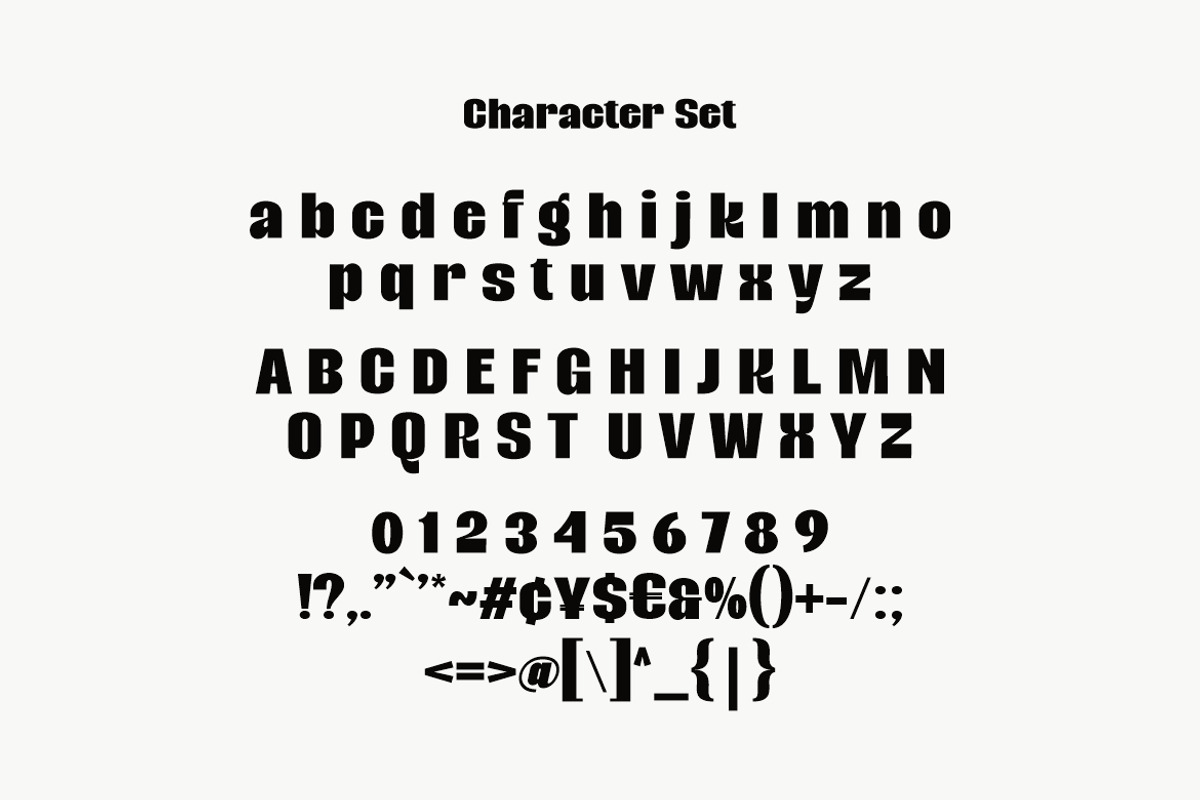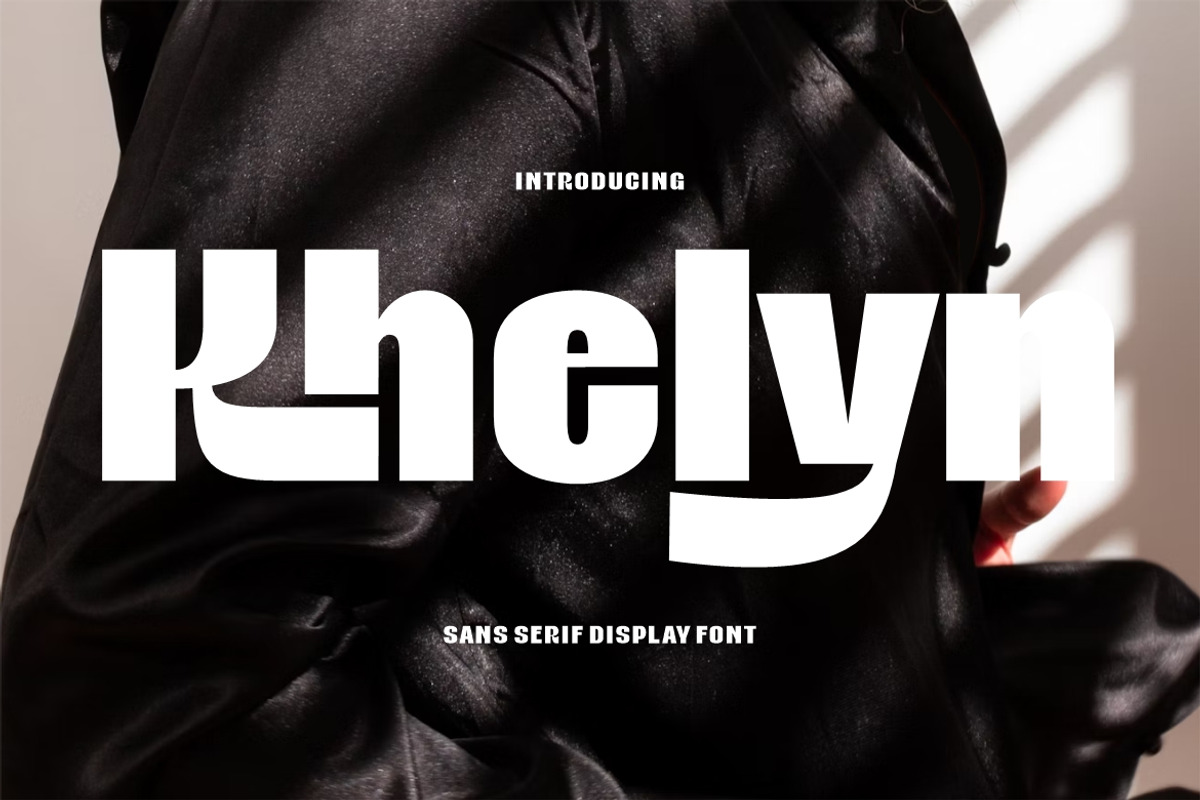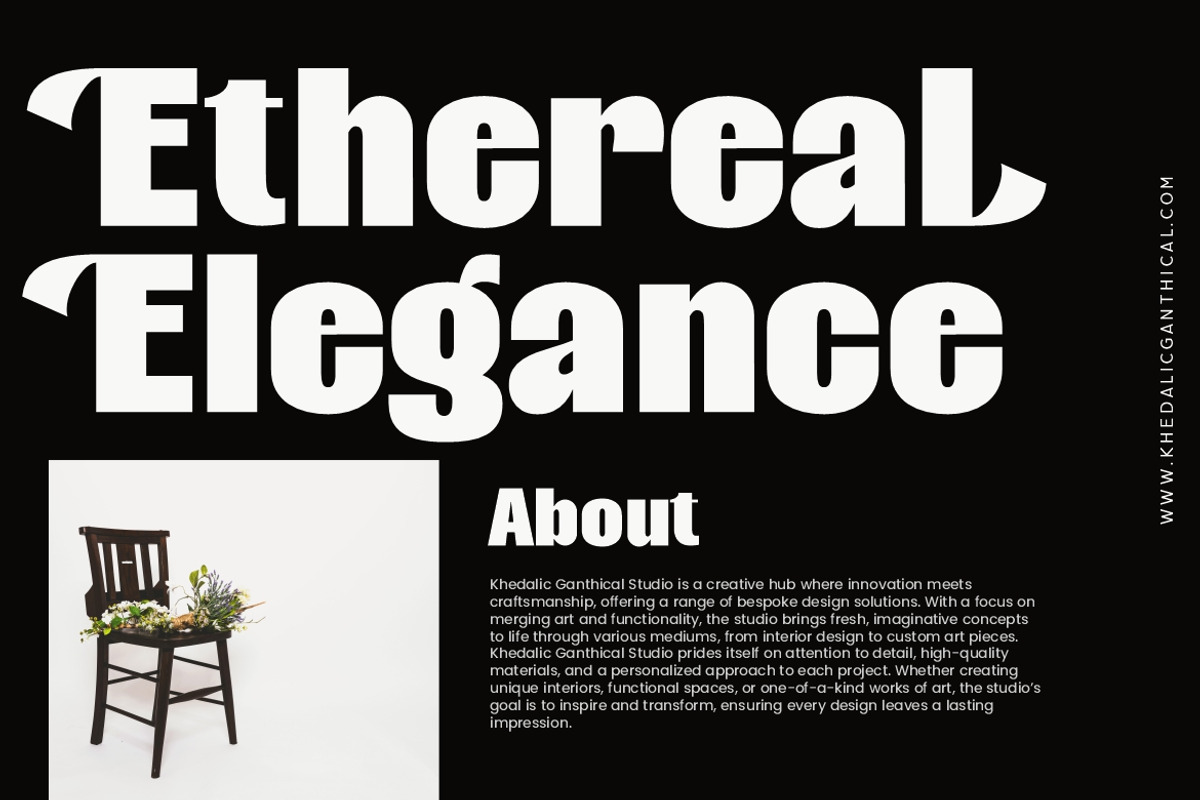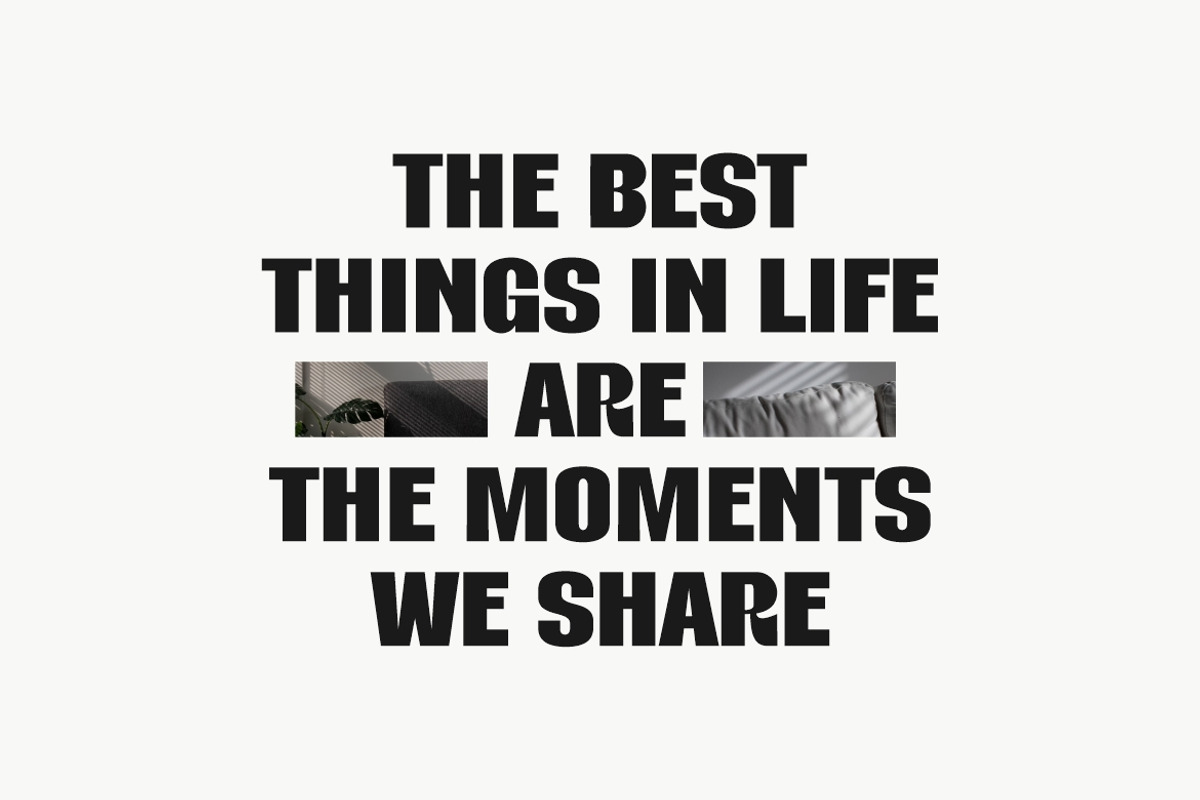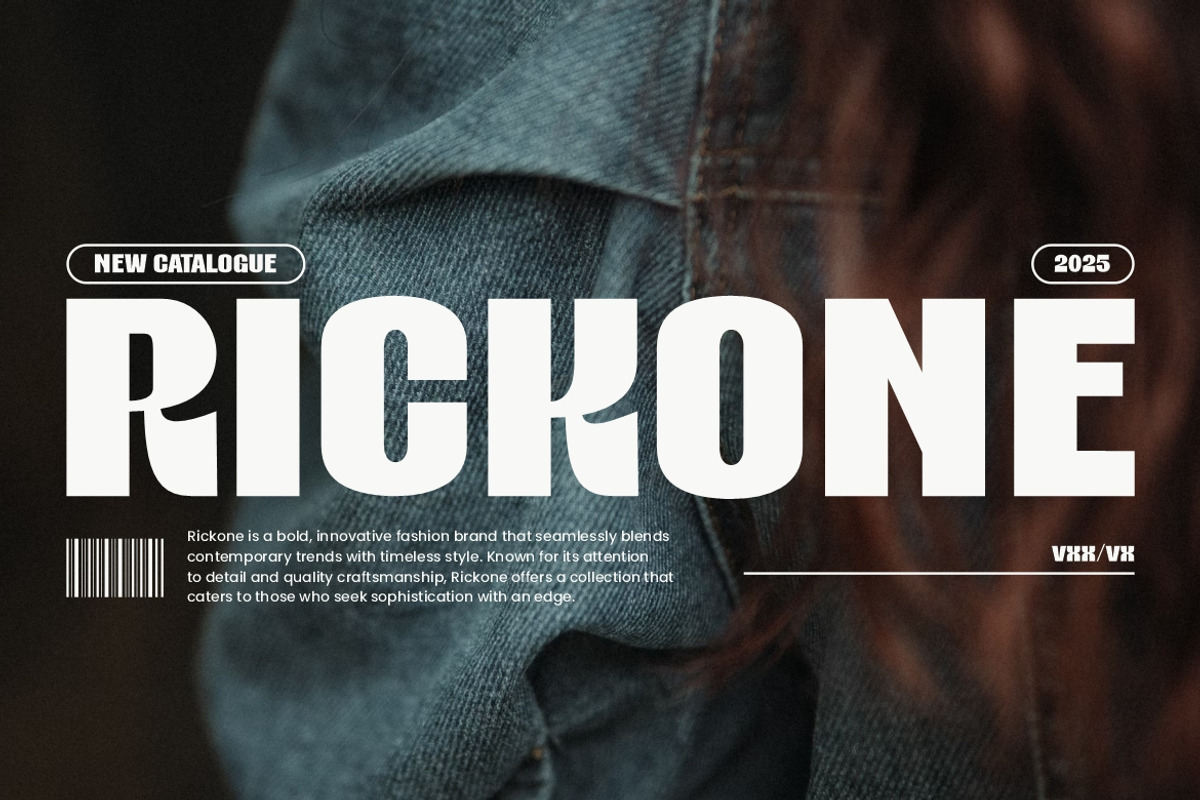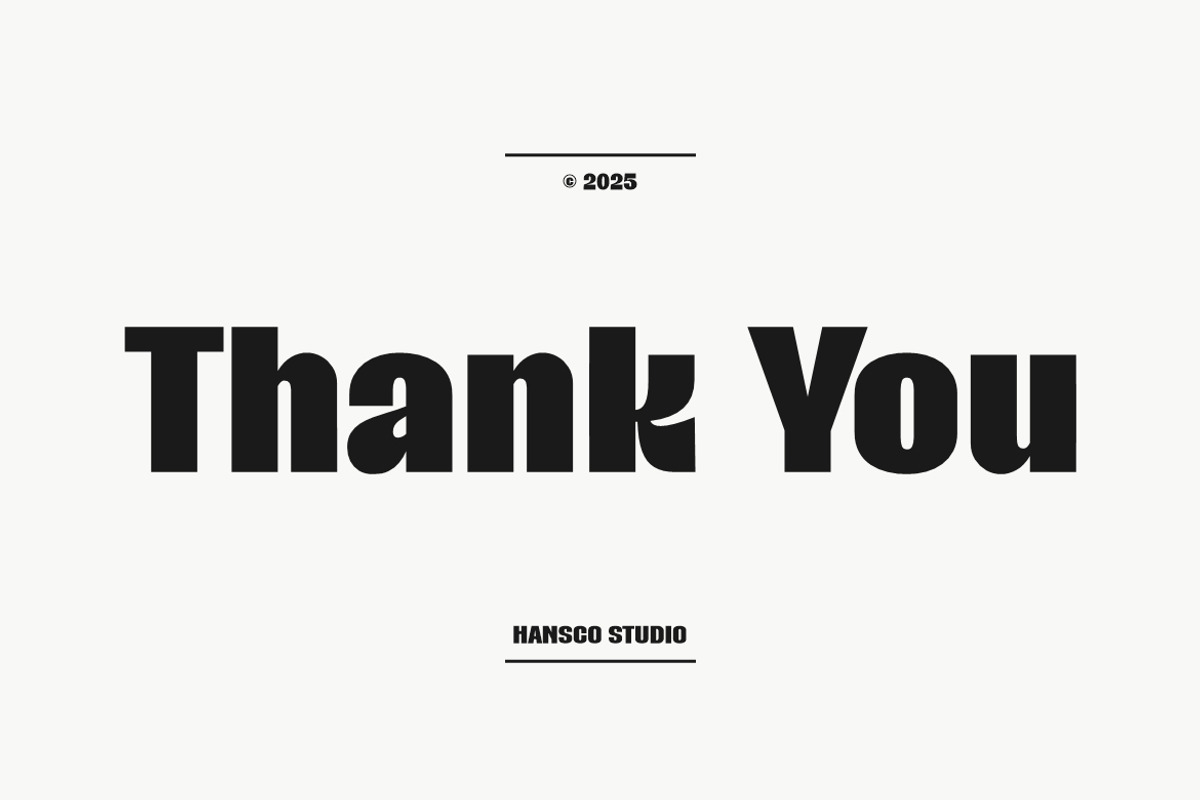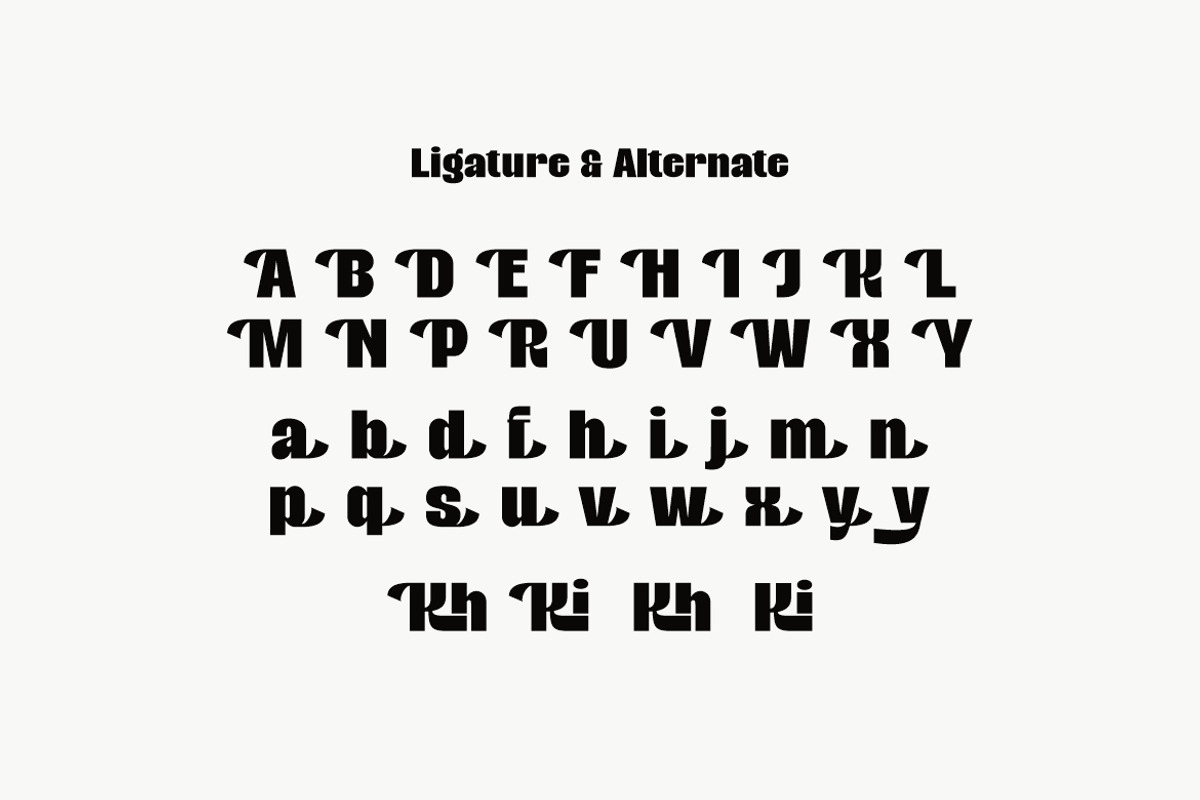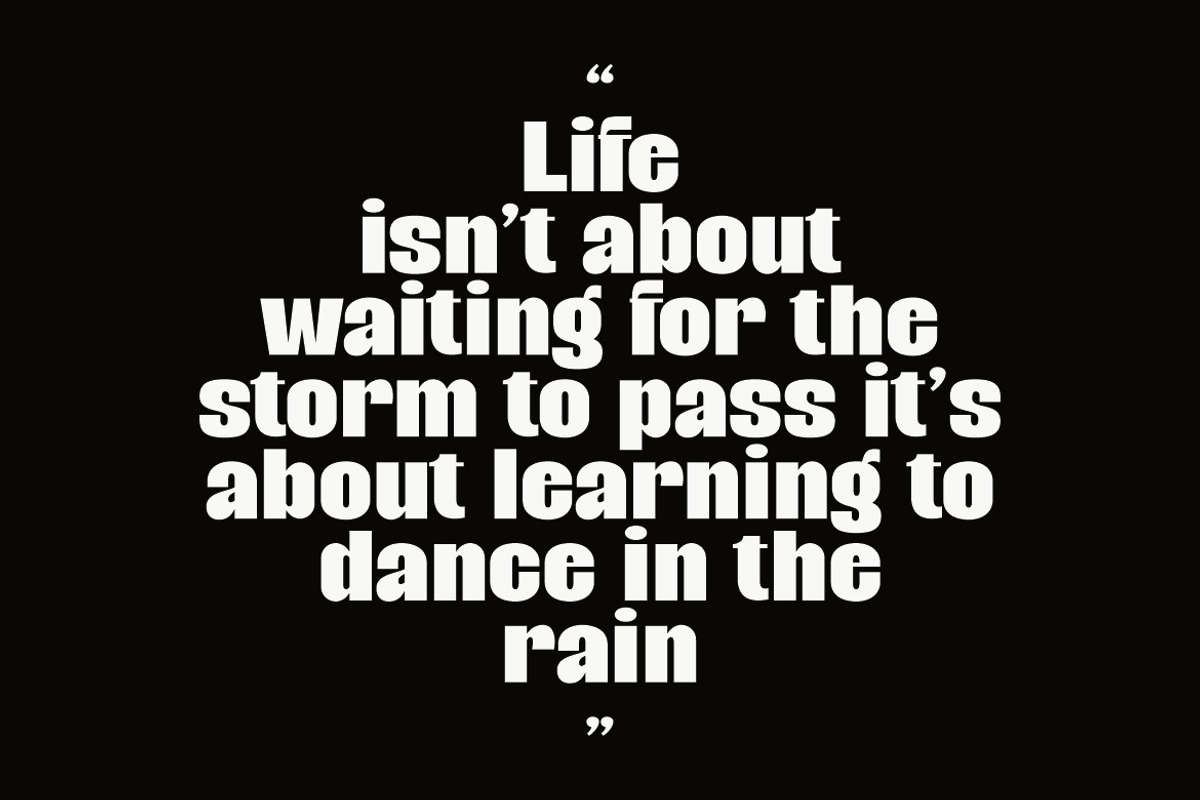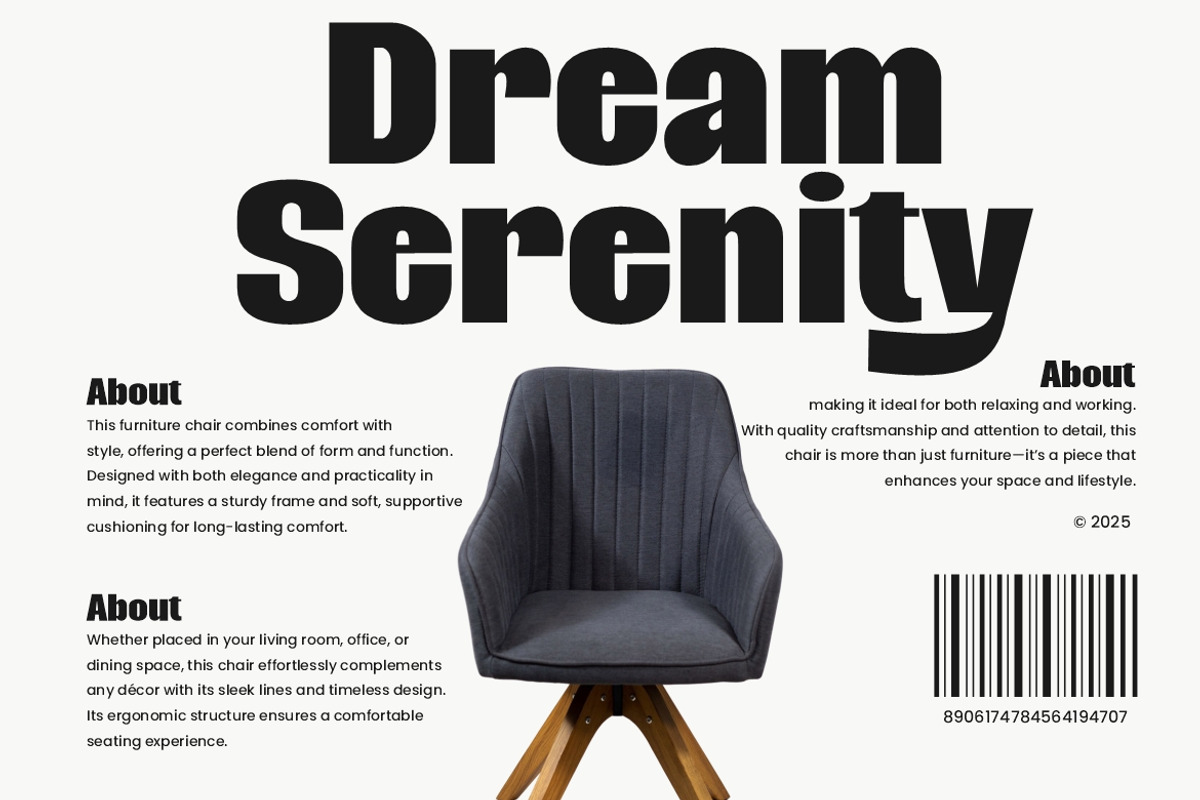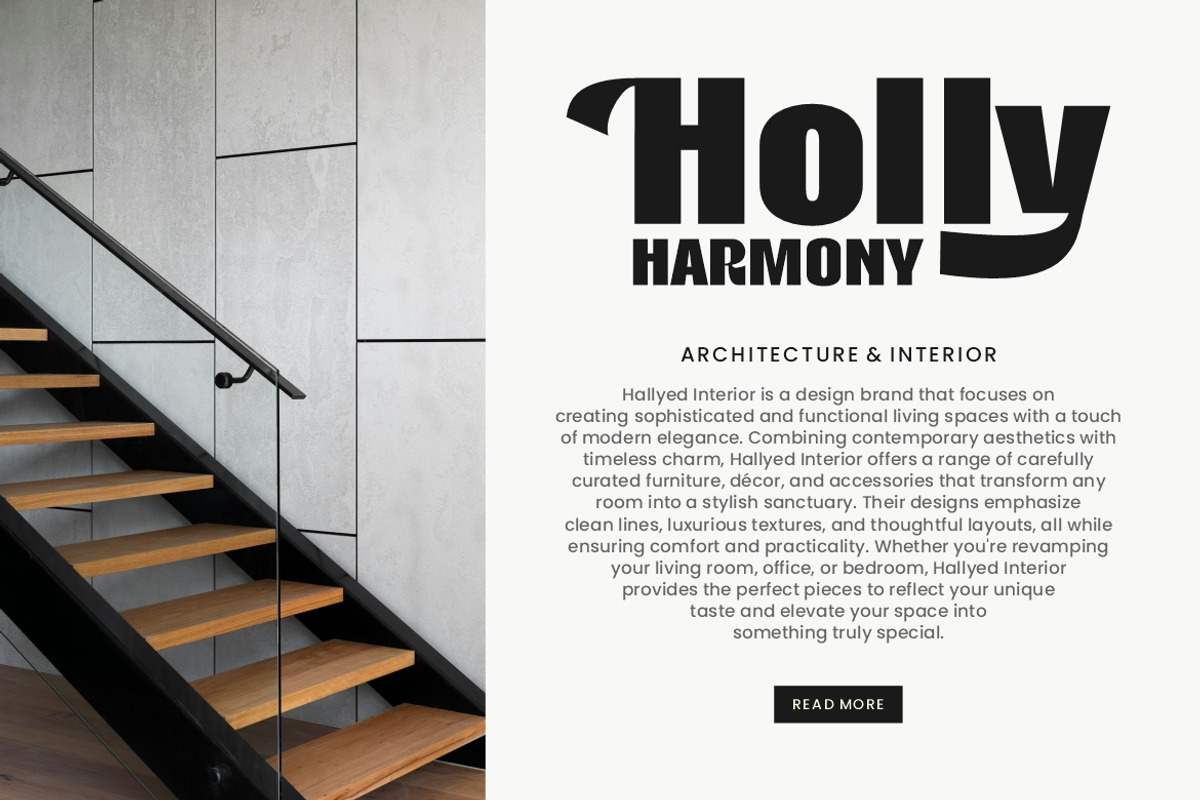
Khelyn Serif Font
Khelyn Font is a display bold tall sans serif font with modern look!. Equipped with all complete characters ranging from lowercase, uppercase letters, numbers, punctuation marks and multi-lingual support, this font is ready to be used in any project. Very suitable for Logotype, Stickers, Packaging design, Cricut Project, Headlines, Brand identity, Posters, Magazines, Books, YouTube, Instagram, Websites, Canva, Corjl or any of your creative design projects.
Lowercase & Uppercase
Alternate & Ligature for some Character